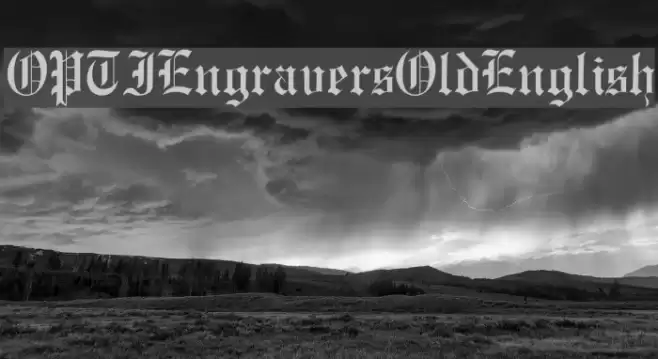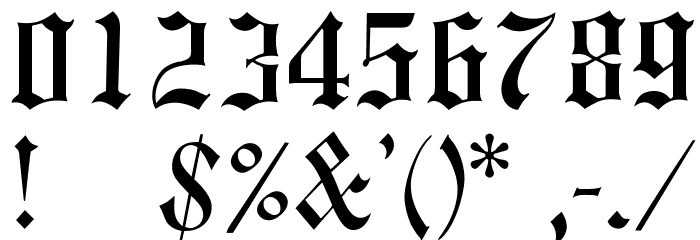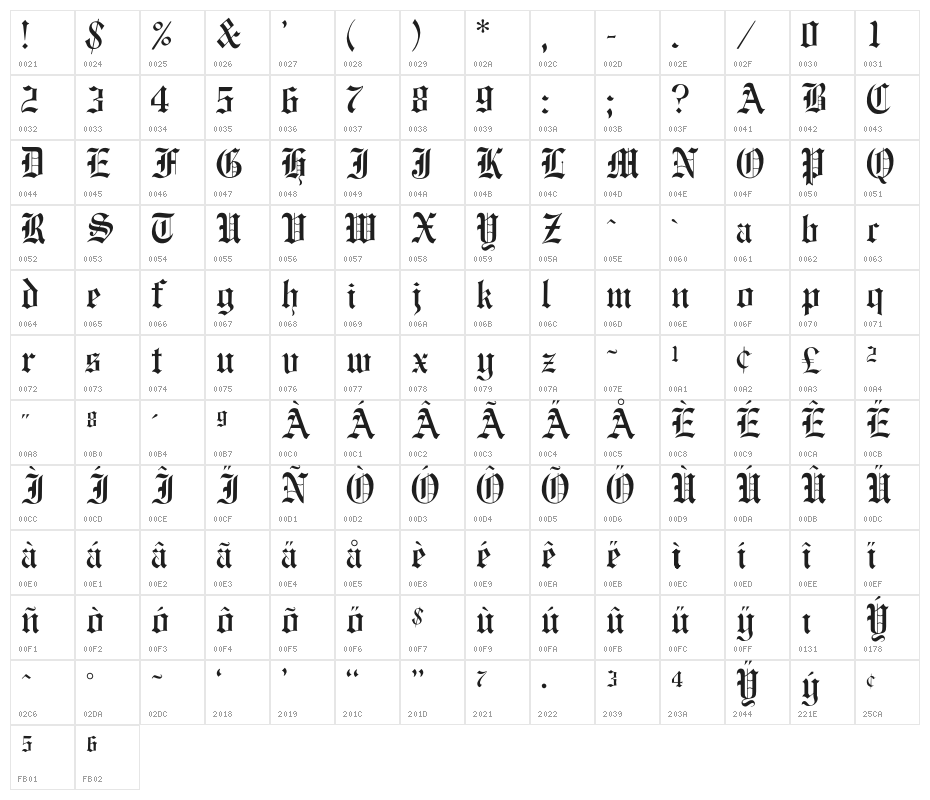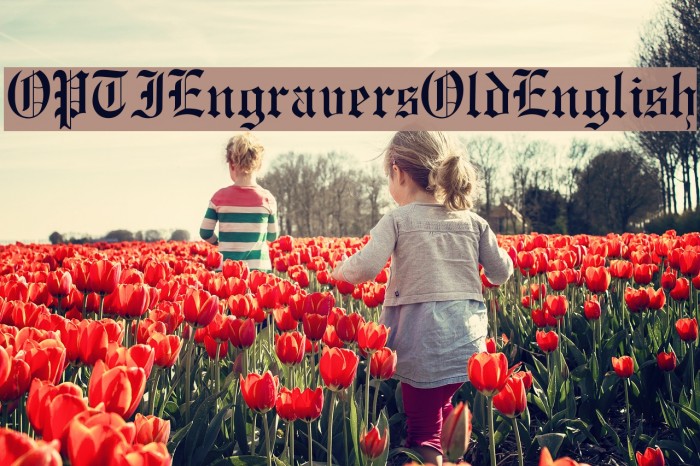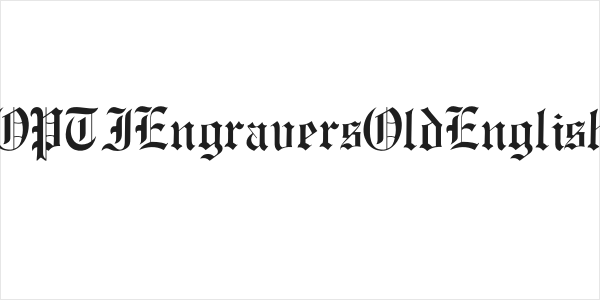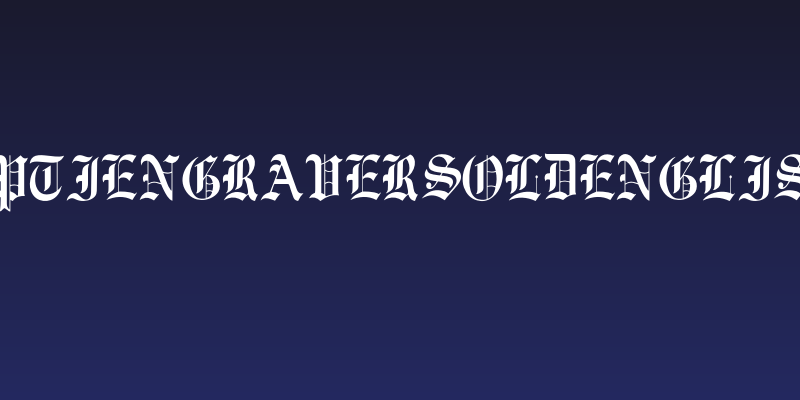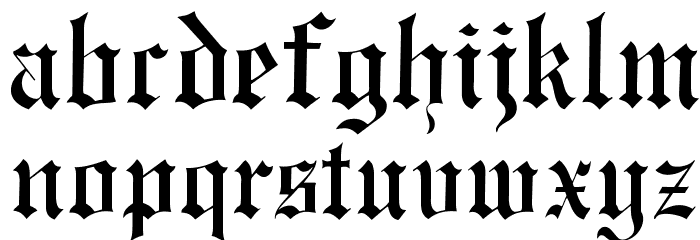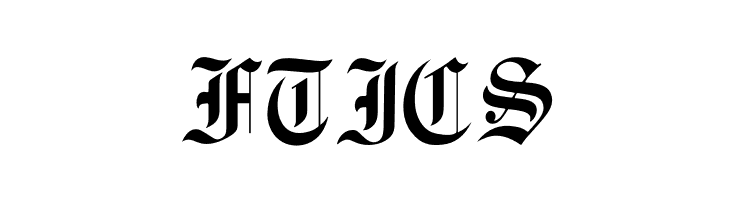
OPTIEngraversOldEnglish Font
OPTIEngraversOldEnglish Description
This font embodies the traditional elegance of Old English typography, characterized by its intricate and ornate letterforms. Each character is crafted with sharp, angular lines and decorative flourishes that evoke a sense of historical grandeur. The uppercase letters are particularly elaborate, featuring bold strokes and pointed serifs that enhance their majestic appearance. The lowercase letters maintain a consistent style, with a slightly more subdued yet still intricate design. The numerals and special characters are equally detailed, ensuring a cohesive look across all text. This font is perfect for projects that require a touch of classic sophistication and historical charm.
An ornate and intricate Old English style font with bold, angular letterforms from Uncategorized fonts.
- Proposed Projects: Ideal for certificates, invitations, historical documents, and branding that requires a classic touch.
- Overall Style: Vintage